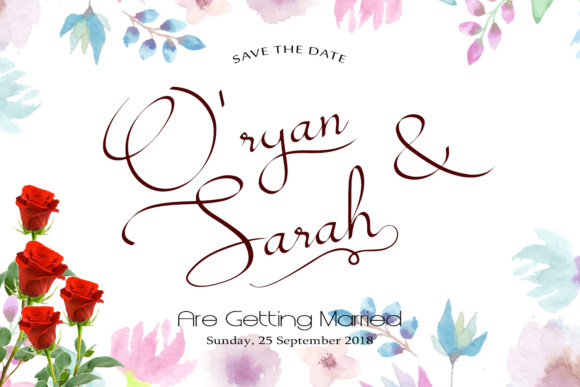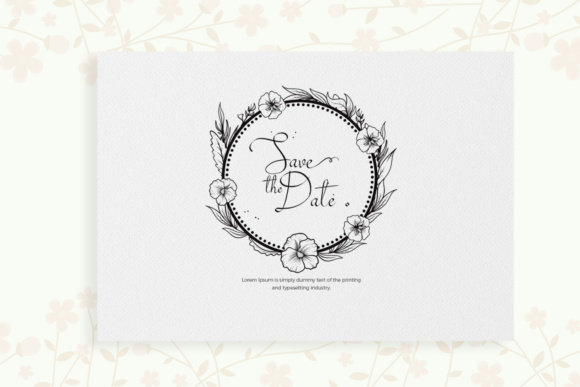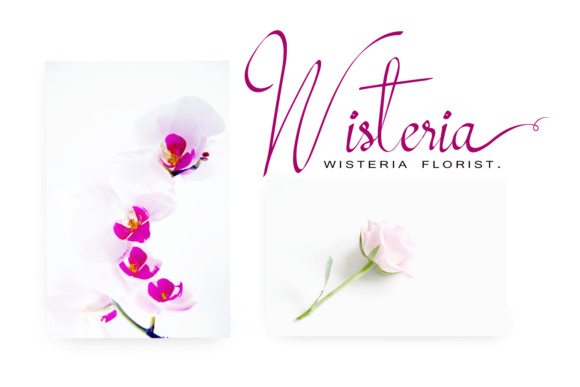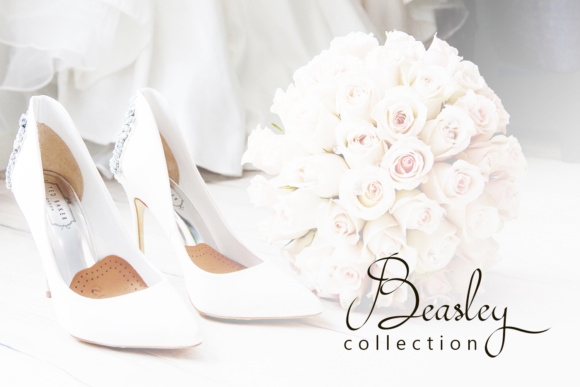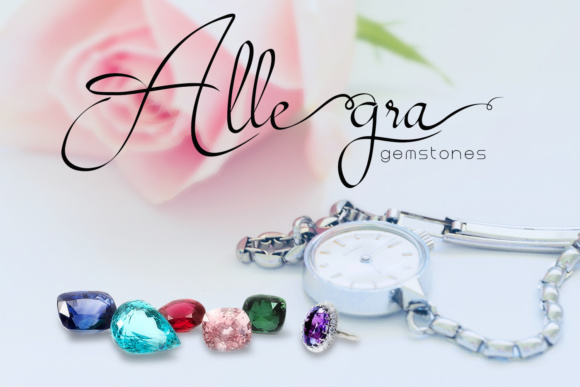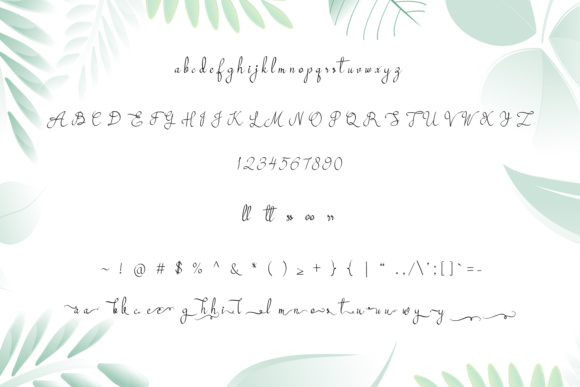
Mollucash Font
About Mollucash Font
The Mollucash is a hand drawn calligraphy typeface. It’s perfect for branding, wedding invites and cards, fashion and creative quotes.